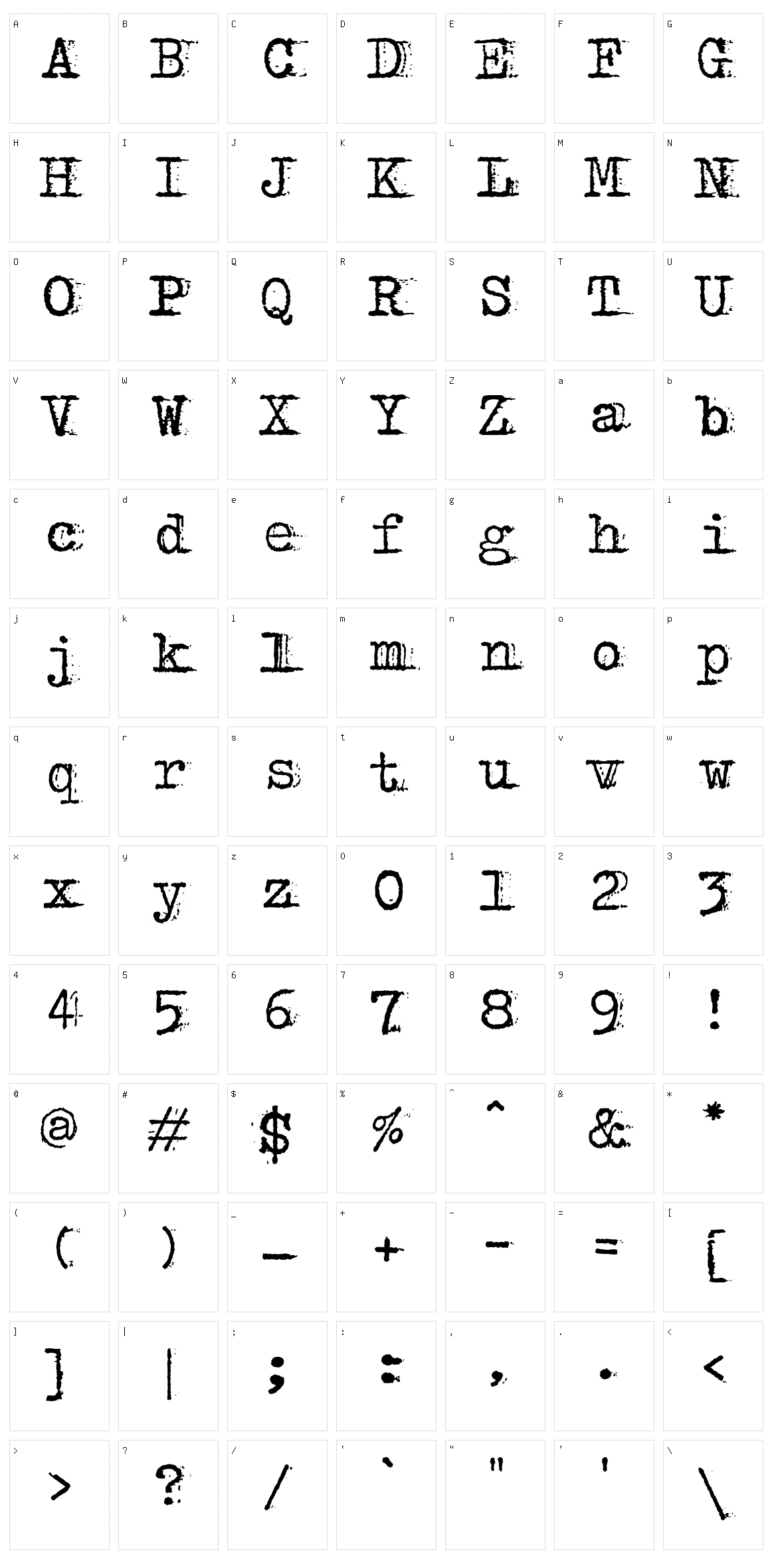
The free font Bulky Refuse Type is carefully designed by Philip Steffen, showcasing a thoughtful balance of creativity and usability and falls under the Typewriter font style. When you download the ZIP file, it contains only 65.96 KB of font files, making it lightweight and quick to download. Please review the license details below to understand permitted usage and distribution rights. If license information is not available, we recommend using this font for personal projects only or contacting the author directly for commercial usage permissions.